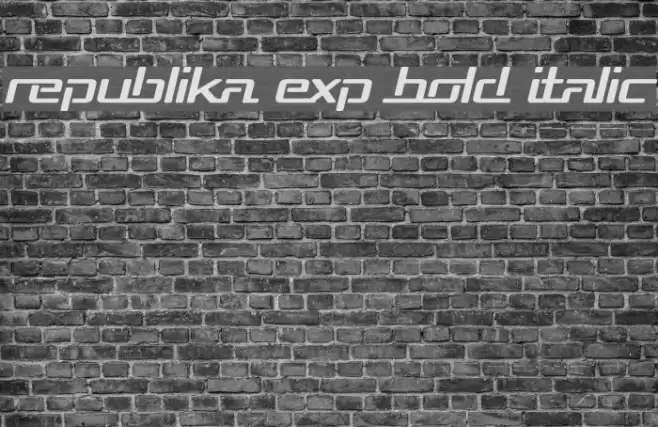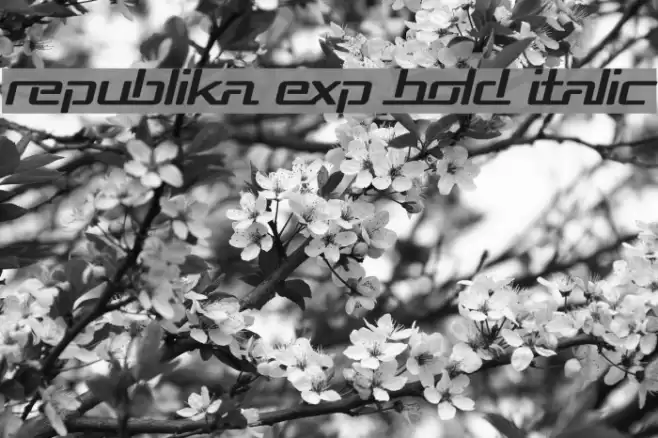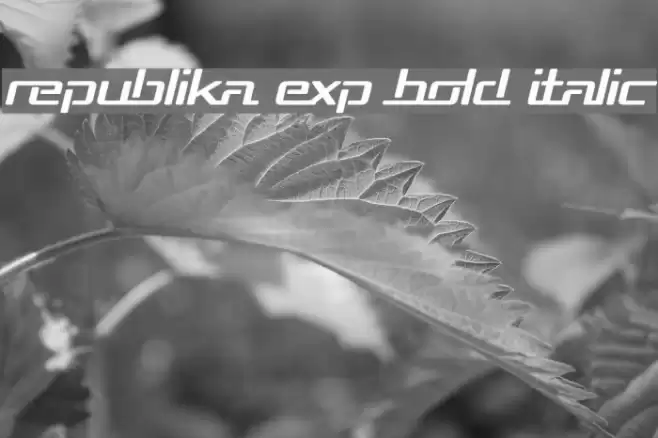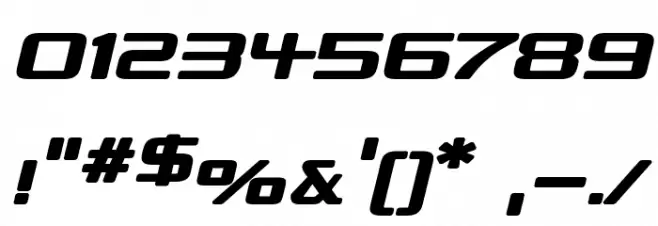
Republika Exp Bold Italic Font
Republika Exp Bold Italic Description
This font features a bold and italicized style with a futuristic and dynamic appearance. The characters are slightly slanted, giving a sense of motion and speed. The strokes are thick and consistent, providing a strong visual impact. The design is clean with a modern touch, making it suitable for contemporary projects. The uppercase and lowercase letters maintain a uniform look, while the numerals and special characters are designed to complement the overall aesthetic. The font's geometric shapes and sharp angles contribute to its distinctive and assertive personality.
A bold, italicized font with a futuristic and dynamic style from Uncategorized fonts.
- Proposed Projects: Ideal for technology branding, sports team logos, modern advertising, and dynamic poster designs.